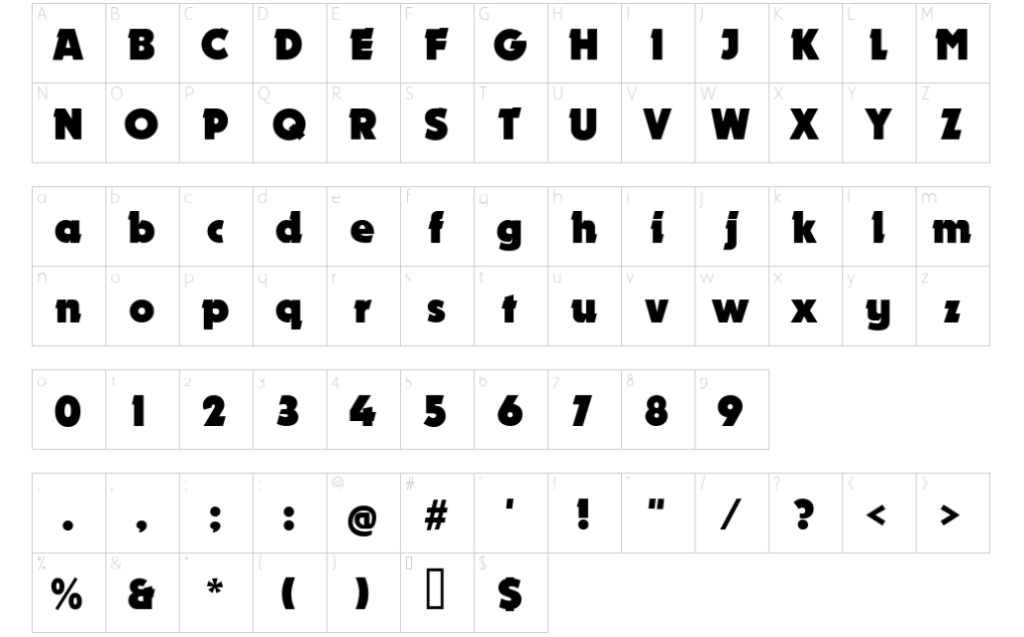
Brawl Stars Font: Introduction
People pay close attention to the Brawl Stars Font since Supercell designed it based on their popular mobile game, Brawl Stars. This dynamic font mirrors the fun and active nature of Brawl Stars’ gaming action.
Supercell made Brawl Stars as a multiplayer online battle arena and third-person shooter game that attracts players worldwide. Everybody enjoys playing this game because its animated visuals and cute characters invite players, young and old, to want to join in. Beyond running matches, Brawl Stars offers players a complete game experience that includes its artistic design details.
Brawl Stars Font For Logo
Nougat font from the logo gets visual improvements through three-dimensional enhancements to enhance its appearance. Display serifs stand out in Nougat’s retro font to create a special visual look. Designer Dieter Steffmann created the font. Nougat brings back classic times with its vintage design to match the Brawl Stars logo perfectly.
Brawl Stars Font For Interface and In-Game Items
Get ready to uncover the typography magic that brings the popular mobile game Brawl Stars to life! The font behind the game’s graphical user interface and gameplay is none other than “Lilita One” a unique typeface crafted by Argentinean designer Juan Montoreano.
Features of Brawl Stars Font
The Brawl Stars Font stands out due to its bold and playful characteristics. Here are the key features that make it unique:
- Bold Letterforms
The font features thick, blocky characters that command attention. The bold strokes give the text a strong visual presence, making it ideal for headlines and logos. - Rounded Edges
Normal and curve lines in its design make the Brawl Stars Font look more friendly than basic square shapes. The curves of the font reduce its strength while making it appealing to people of all ages. - Dynamic Style
The typeface’s active appearance matches the game’s speed exactly. Its usage suits many projects that display fun and energetic content. - Customizable Elements
Many fan-created versions of the font offer customizable weights and styles, allowing designers to adapt the typeface to various design needs. - Versatile Usability
Despite its playful nature, the font is surprisingly versatile. It works well for a variety of creative applications, from branding to digital content.
Applications of Brawl Stars Font
The versatility of the Brawl Stars Font makes it a favorite among designers. Here are some ways it can be used:
- Gaming Graphics
The typeface suits all parts of gaming, such as event materials, streaming appearances, and community activities. It delivers a fast impression of enjoyment and enthusiasm.
- Merchandise and Branding
Many Brawl Stars fans use the font to create custom merchandise like t-shirts, mugs, and posters. Its bold and recognizable style ensures that the products stand out.
- Social Media Content
If you’re looking to create engaging social media posts, this font can help. Use it for attention-grabbing headlines, story graphics, or meme templates to capture your audience’s interest.
- Event Invitations and Posters
Hosting a gaming night or a Brawl Stars-themed party? The font is perfect for invitations, posters, and banners that set the right tone for the event.
- Educational Materials
The Brawl Stars Font works best for educational content aimed at children because of its strong and fun design.
Alternatives to Brawl Stars Font
While the Brawl Stars Font is undoubtedly unique, there are several alternatives that offer a similar playful and bold aesthetic. Here are some top picks:
- Comic Sans
Comic Sans makes a timeless choice for fun designs because it looks relaxed and welcoming. Keep this font for light use only, since many people dislike its frequent use.
2. Luckiest-guy
This font features bold, rounded characters with a sense of energy and movement. It’s a great alternative for projects requiring a fun and dynamic vibe.
With its clean, rounded letterforms, Fredoka One is perfect for designs targeting younger audiences. It’s bold yet simple, making it versatile for various applications.
A bold and energetic font, Bangers is ideal for comic book-style designs or projects that need a punch of personality.
For a truly unique design, consider creating a custom font inspired by the Brawl Stars aesthetic. Tools like FontStruct or Glyphs can help you design your own typeface.
Final Thoughts
People use Brawl Stars font for more than just text since it creates an atmosphere and delivers excitement to designs. Designers and social media users consider this font their number one choice because it features a strong and fun appearance..
Whether you’re creating gaming visuals, building a brand, or just having fun with personal projects, this font offers endless possibilities. Want to make your designs pop? Learn how to harness the full power of the Brawl Stars Font and create visuals that genuinely resonate with your audience!